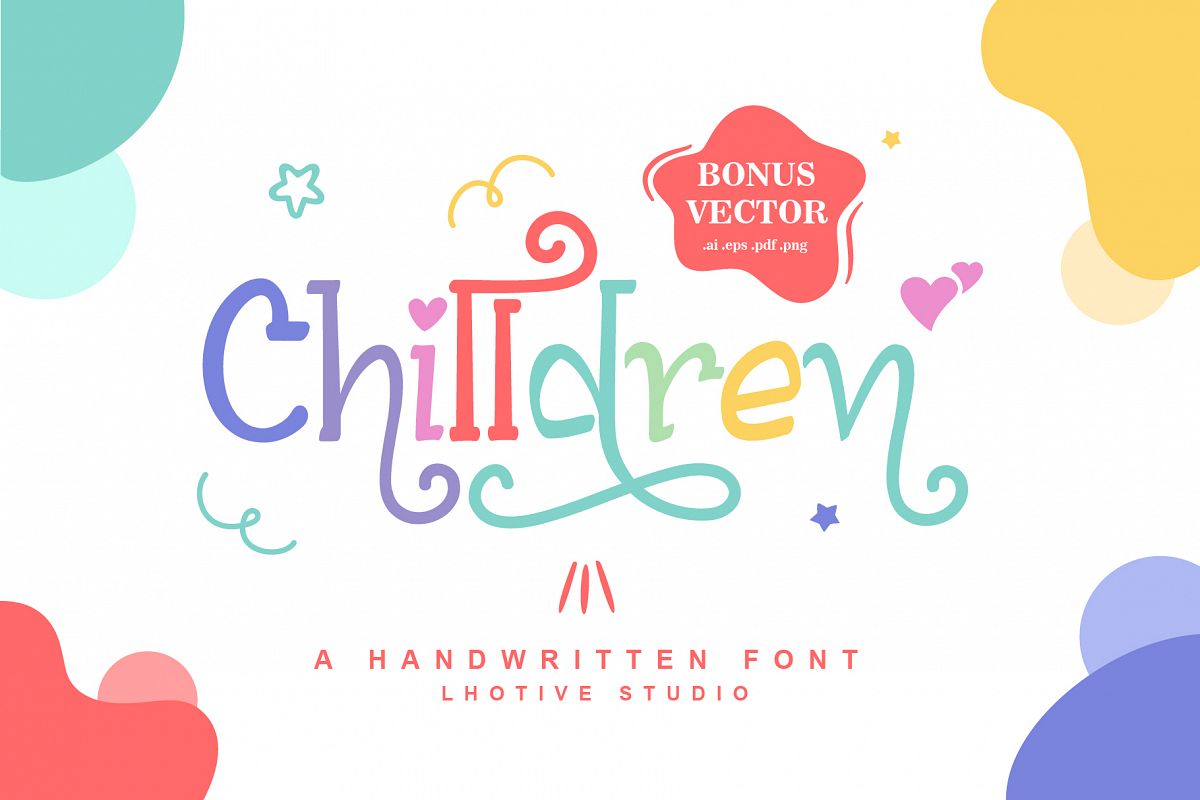
Chilldren Handwritten | Bonus Vector
Chilldren
"Chilldren" is a handwritten font of all modern letters, is very simple and can be used for Types of Children's Designs such as children's show logos, posters, t-shirts, Happy birthday and more .. equipped with Alternative swash and Bonus Vector, and supports international language too.